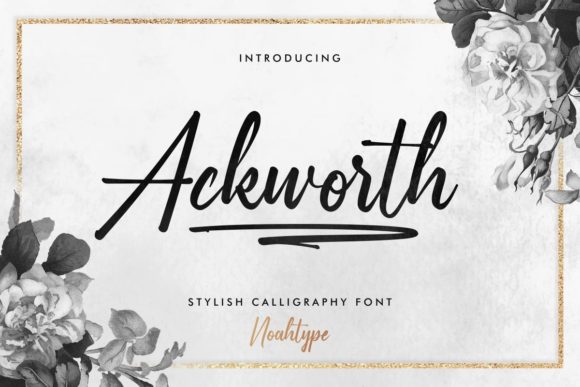
The Elegance of Ackworth Font: A Designer’s Delight
I’ll never forget the time I was working on a luxury branding project for a high-end fashion client. I had spent hours perfecting the design concept, but something was missing – the right font. I scoured the internet, tried out countless fonts, but none seemed to capture the essence of sophistication and elegance I was looking for. That was until I stumbled upon the Ackworth font. ✨
A Personal Review of Ackworth Font
As a designer, I’m always on the lookout for fonts that can elevate my projects to the next level. Here’s my honest review of the Ackworth font:
• ✨ Sophisticated characters: Ackworth font boasts beautifully crafted characters that exude luxury and refinement.
• ✅ Stylish swashes: The font comes with a range of stylish swashes that add a touch of elegance to any design.
• 🎉 Gorgeous alternates: With Ackworth font, you get access to a variety of alternates that allow you to experiment with different design options.
• 🔥 PUA encoded: The font is PUA encoded, making it easy to access all the glyphs and swashes.
While Ackworth font is an excellent choice for many design projects, there are a few things to keep in mind:
• 🤔 Steep learning curve: With so many glyphs and swashes available, it may take some time to get familiar with the font’s features.
The Story Behind Ackworth Font:
Ackworth font was designed by a team of skilled typographers who wanted to create a font that would capture the essence of luxury and sophistication. The font is named after the Ackworth family, who were known for their elegant handwriting. The designers drew inspiration from classic calligraphy and modern script fonts to create a unique and elegant font that’s perfect for a wide range of design projects.
What is Ackworth font? Ackworth font is a bold calligraphy font script with sophisticated characters, stylish swashes, and gorgeous alternates.